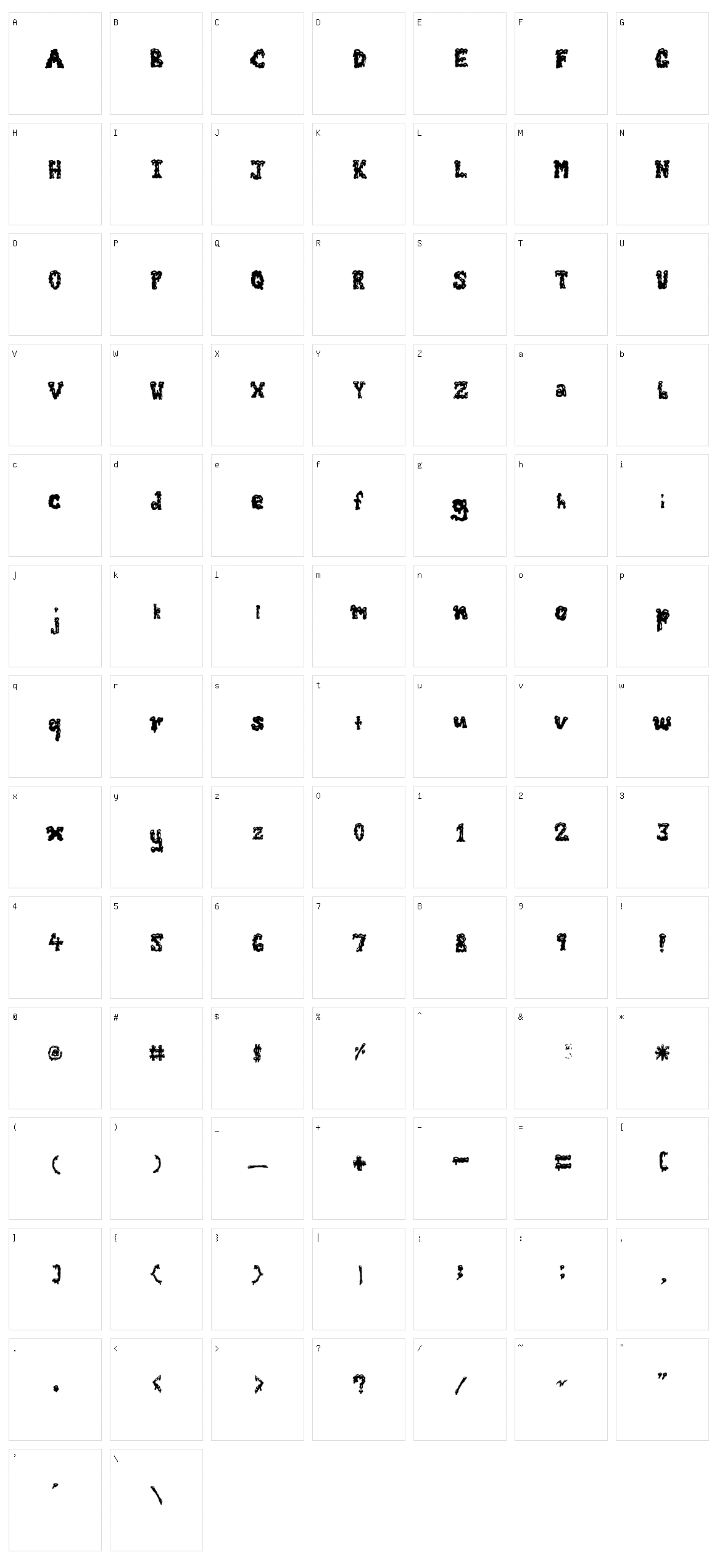
The free font Zombie Guts is carefully designed by Doug Keating, showcasing a thoughtful balance of creativity and usability and falls under the Halloween font style. When you download the ZIP file, it contains only 39.61 KB of font files, making it lightweight and quick to download. Please review the license details below to understand permitted usage and distribution rights. If license information is not available, we recommend using this font for personal projects only or contacting the author directly for commercial usage permissions.